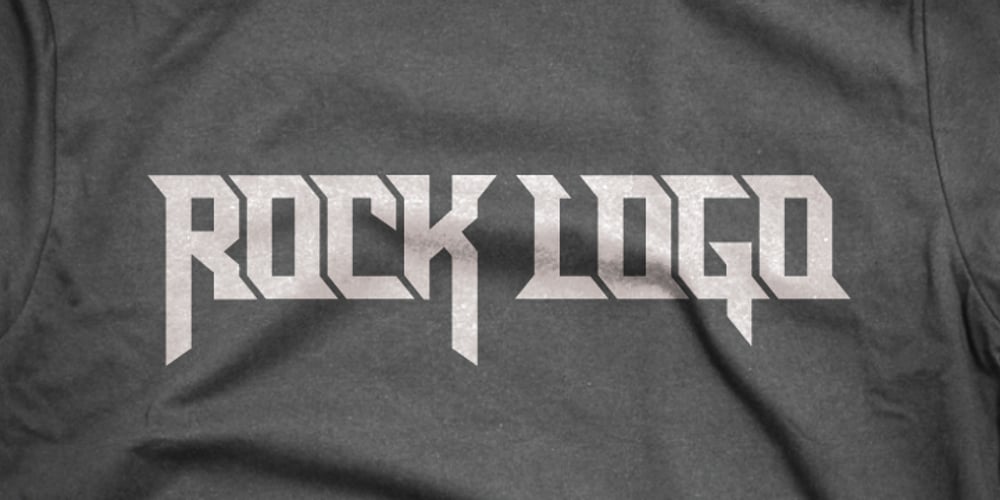
Rocklogo Font Family was designed by Roman Shchyukin and published by Gaslight. Rocklogo contains 1 styles and family package options. Rock Logo is an all caps, display typeface, inspired by old cool rock/metal band logos. It has many alternates, swashes and ligatures.